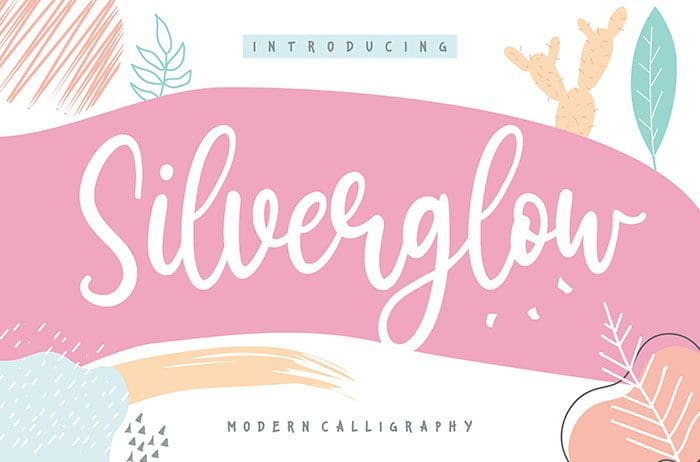
Silverglow calligraphy font is a jolly and sweet font. It is perfect for product packaging, branding projects, magazines, social media posts, wedding invitations and much more! Designed this font by Balpirick Studio. You can also search more free Calligraphy Fonts.